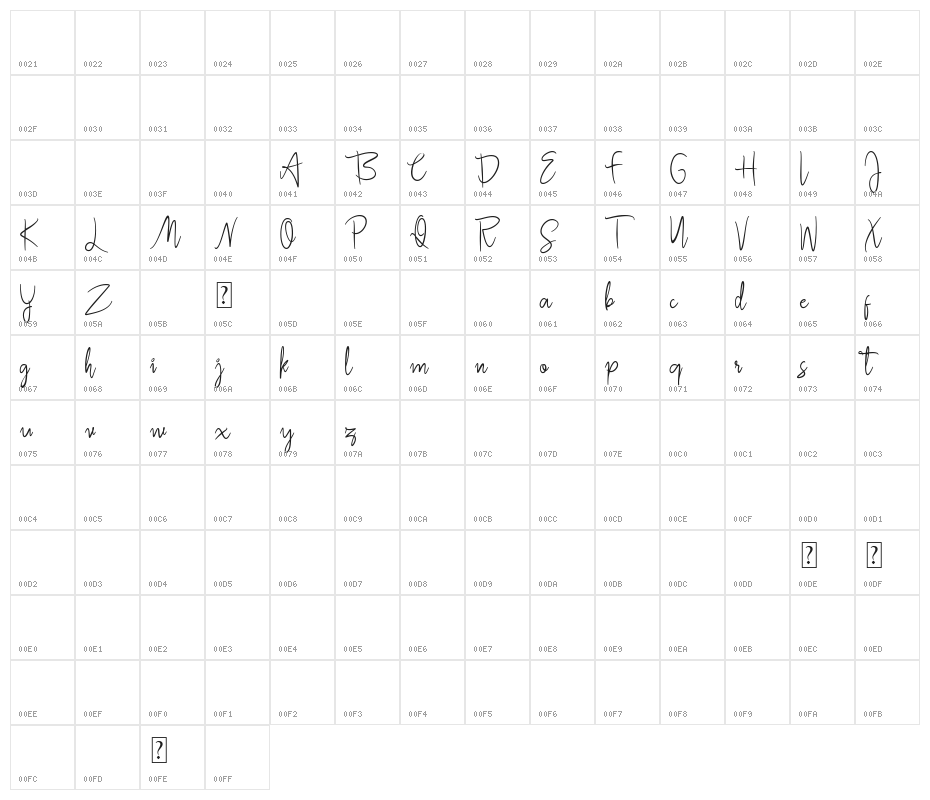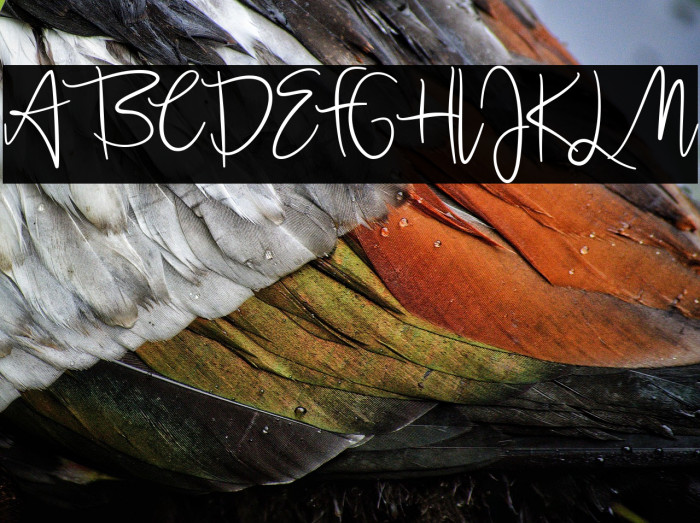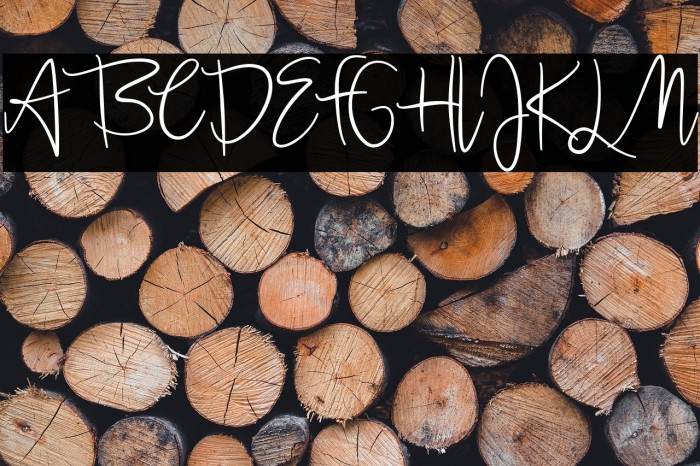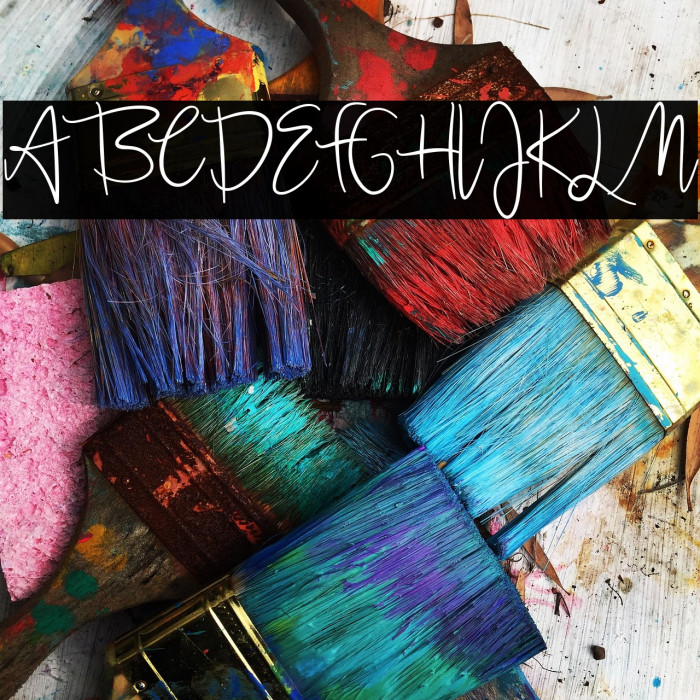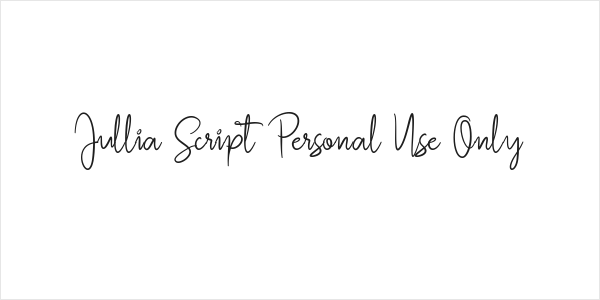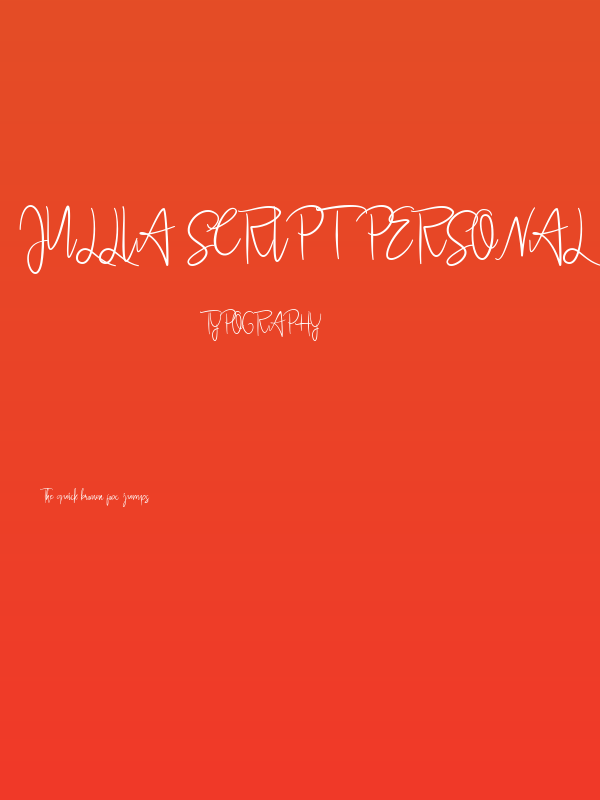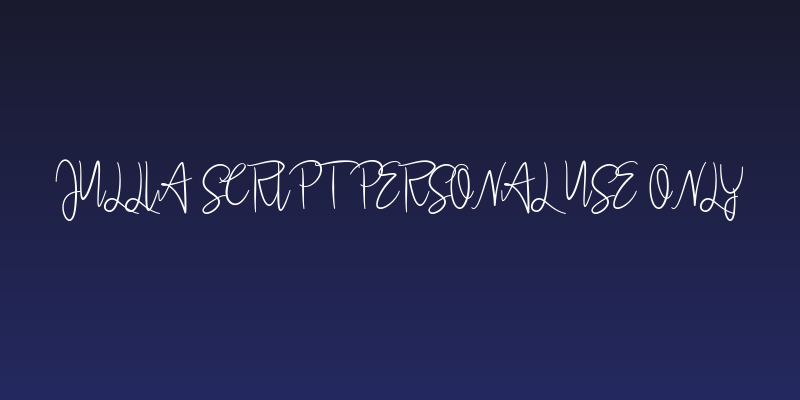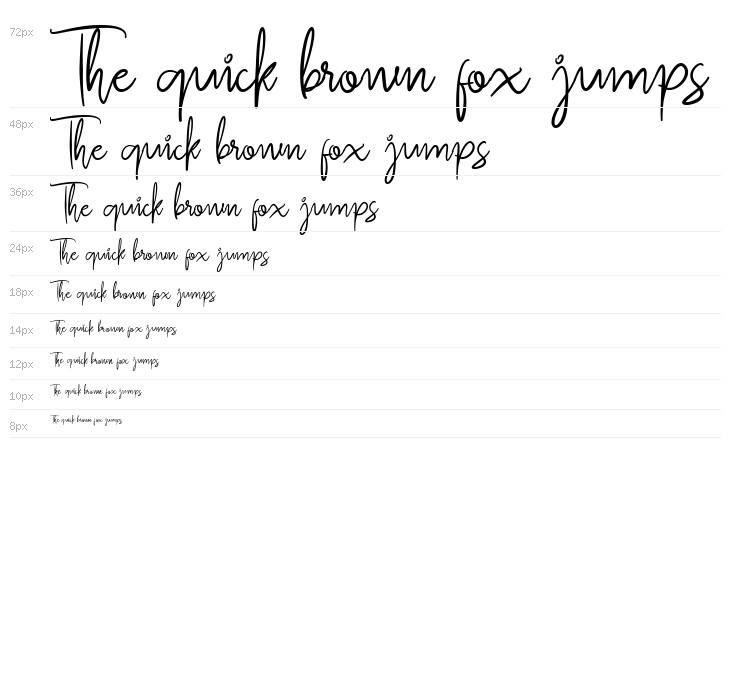
Jullia Script Personal Use Only Font
Jullia Script Personal Use Only Description
This font features an elegant and flowing script style, characterized by its smooth, cursive letterforms that mimic the fluidity of handwriting. The uppercase letters are tall and slightly exaggerated, with unique loops and swirls that add a touch of sophistication. The lowercase letters maintain a consistent flow, with some letters featuring distinctive flourishes. Overall, the font exudes a sense of elegance and creativity, making it suitable for projects that require a personal and artistic touch. The numbers and special characters are designed to complement the letters, maintaining the same graceful style.
Overall StyleElegant
Use CaseLogos, Invitations, Personal projects
Proposed ProjectsIdeal for wedding invitations, greeting cards, branding, and personal stationery.